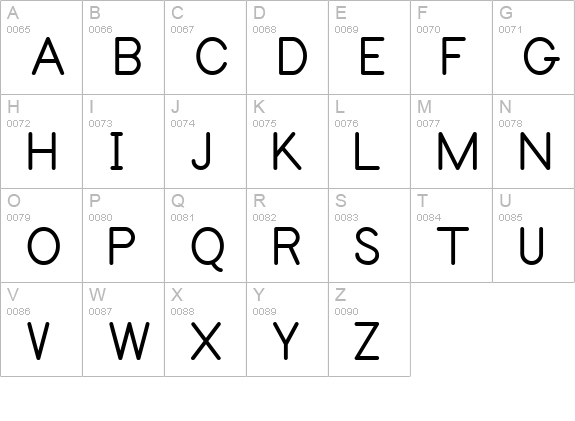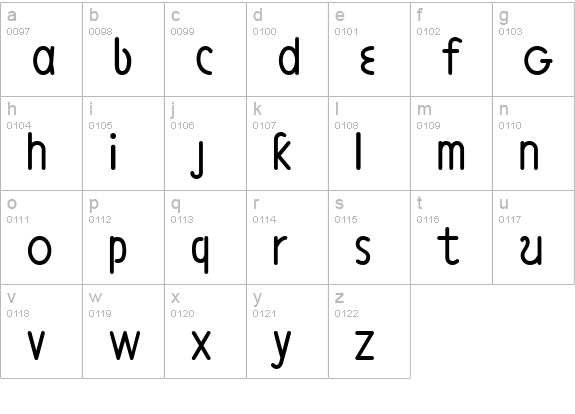
Philadelphia LineAligned Font Details
Philadelphia LineAligned font is a modern typeface that exudes sophistication and elegance with its clean lines and sleek design. Perfect for adding a touch of class to any project, this font is versatile and can be used for a variety of purposes, from branding to web design. With its sharp, precise lines and unique style, Philadelphia LineAligned font is sure to make a statement. Whether you're creating a logo, designing a website, or working on a print project, this font will add a touch of sophistication and professionalism. Best of all, Philadelphia LineAligned font is available for free download at FontsMarket.com. So you can easily access this stylish font and start using it in your projects right away. Don't miss out on the opportunity to enhance your designs with this beautiful and modern typeface. Download Philadelphia LineAligned font today and take your designs to the next level!